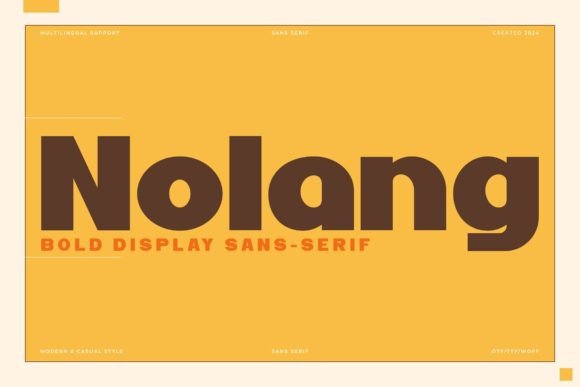
Nolang Font: The Ultimate Bold Display Sans Serif for Modern Designs
In the world of typography, fonts play a crucial role in conveying the message and tone of a design. With the numerous font options available, finding the perfect one for your project can be overwhelming. However, if you’re looking for a bold, modern, and easy-to-read font, look no further than Nolang Font. In this article, we’ll dive into the features, benefits, and uses of Nolang Font, and explore why it’s becoming a popular choice among designers.
Nolang Font: A Bold Display Sans Serif
Nolang Font is a bold display sans serif font that exudes confidence and strength. Its thick, modern design makes it perfect for headlines, posters, and advertisements. The font’s clean lines and simple design give it a strong and confident look, making it ideal for designers who want to make a statement.
Key Features of Nolang Font
- Bold and Modern Design: Nolang Font boasts a bold and modern design that grabs attention and makes a statement.
- Easy to Read: Despite its bold design, Nolang Font is easy to read, making it perfect for headlines and titles.
- Clean Lines and Simple Design: The font’s clean lines and simple design give it a strong and confident look.
- Versatile: Nolang Font can be used for a variety of design projects, from posters and advertisements to logos and branding.
Benefits of Using Nolang Font
So, why should you choose Nolang Font for your design project? Here are some benefits of using this amazing font:
- Grabs Attention: Nolang Font’s bold design grabs attention and makes a statement, perfect for headlines and titles.
- Conveys Confidence: The font’s clean lines and simple design convey confidence and strength, making it ideal for brands that want to project a strong image.
- Easy to Pair: Nolang Font is easy to pair with other fonts, making it versatile for a variety of design projects.
- Legible: Despite its bold design, Nolang Font is legible, making it perfect for designs that require easy reading.
Uses of Nolang Font
Nolang Font is a versatile font that can be used for a variety of design projects. Here are some popular uses of this amazing font:
- Headlines and Titles: Nolang Font is perfect for headlines and titles, making it a great choice for posters, advertisements, and magazines.
- Logos and Branding: The font’s bold and modern design makes it ideal for logos and branding, especially for companies that want to project a strong image.
- Posters and Flyers: Nolang Font is perfect for posters and flyers, making it a great choice for advertising and promotional materials.
- Digital Media: The font can also be used for digital media, such as website headers, social media graphics, and email marketing campaigns.
Tips for Using Nolang Font
Here are some tips for using Nolang Font effectively in your design projects:
- Use it for Headlines: Nolang Font is perfect for headlines and titles, so use it to grab attention and make a statement.
- Pair it with Other Fonts: The font is easy to pair with other fonts, so experiment with different combinations to find the perfect look for your design.
- Adjust the Size: Nolang Font is bold and modern, so adjust the size to fit your design needs.
- Use it for Branding: The font’s bold and modern design makes it ideal for branding, so use it to create a strong and confident image for your company.
In conclusion, Nolang Font is a bold display sans serif font that’s perfect for modern designs. Its thick, modern design makes it perfect for headlines, posters, and advertisements, while its clean lines and simple design give it a strong and confident look. With its versatility, legibility, and ease of use, Nolang Font is becoming a popular choice among designers. So, if you’re looking for a font that makes a statement, look no further than Nolang Font.
- What is Nolang Font?: Nolang Font is a bold display sans serif font that’s perfect for modern designs.
- What is Nolang Font used for?: Nolang Font is used for headlines, posters, advertisements, logos, branding, and digital media.
- Is Nolang Font easy to read?: Yes, Nolang Font is easy to read, making it perfect for designs that require easy reading.